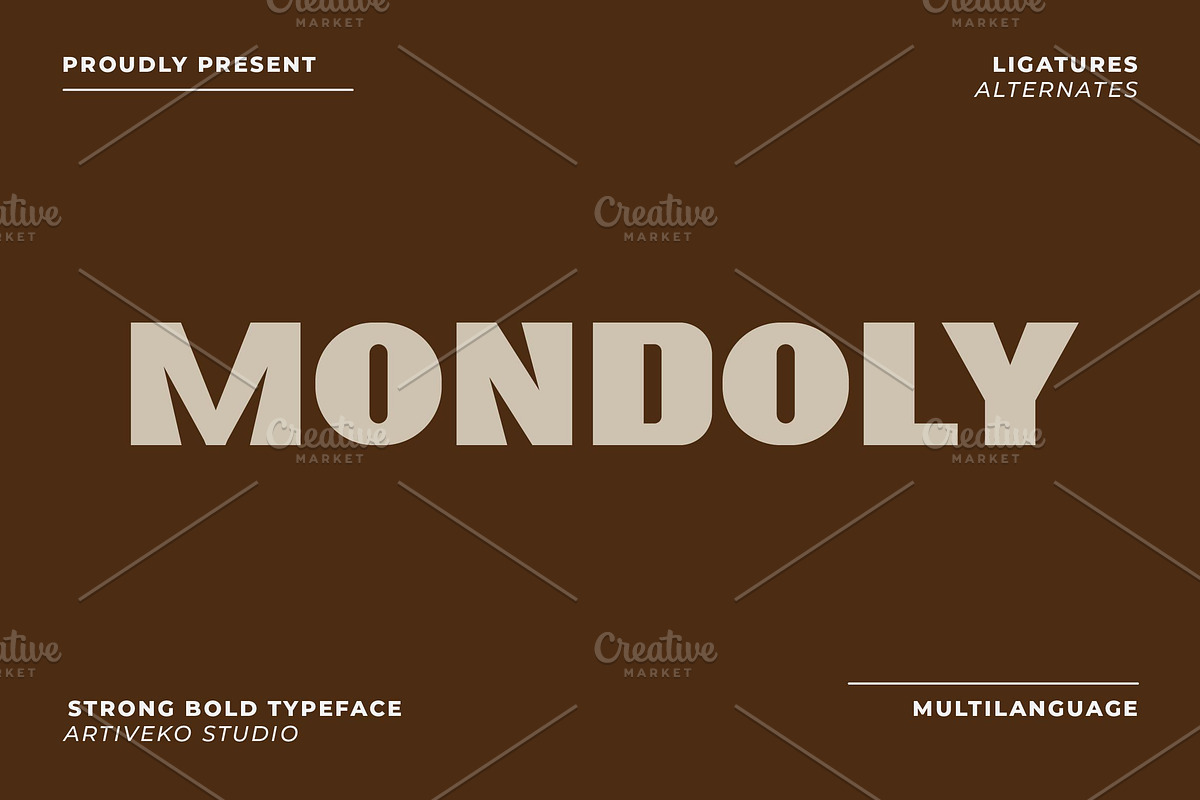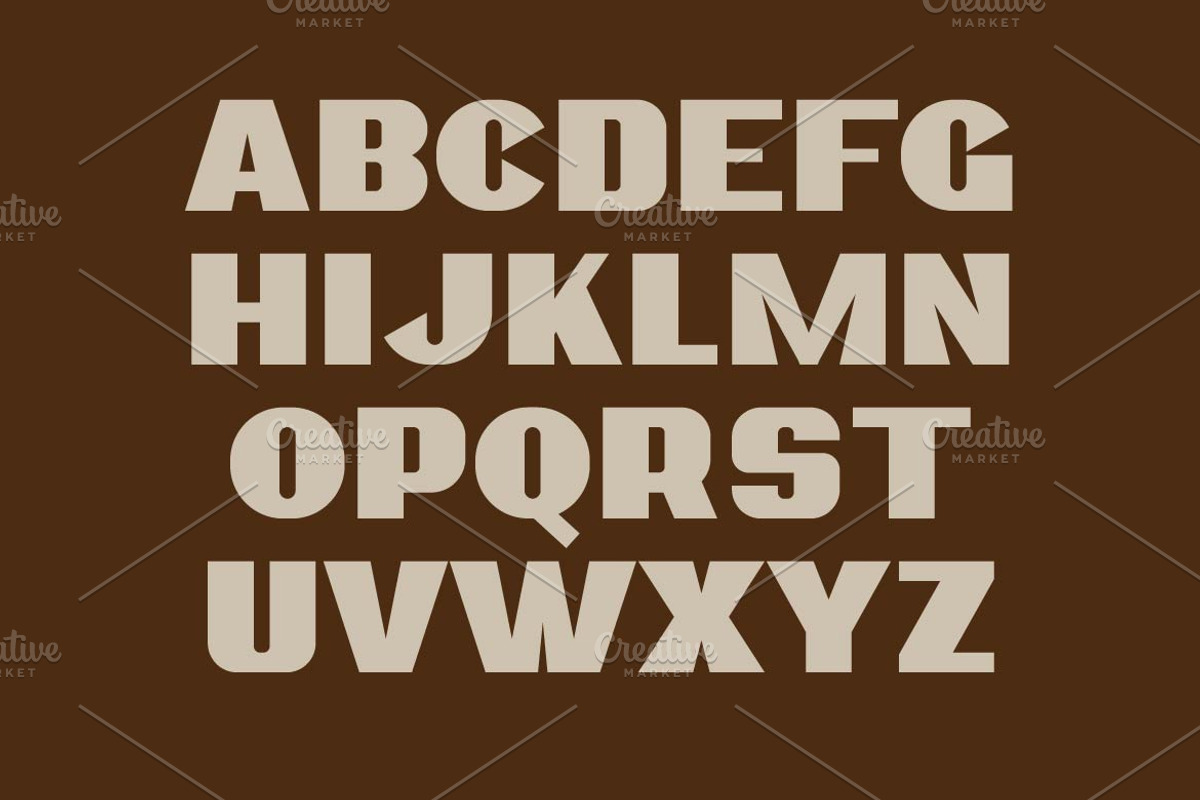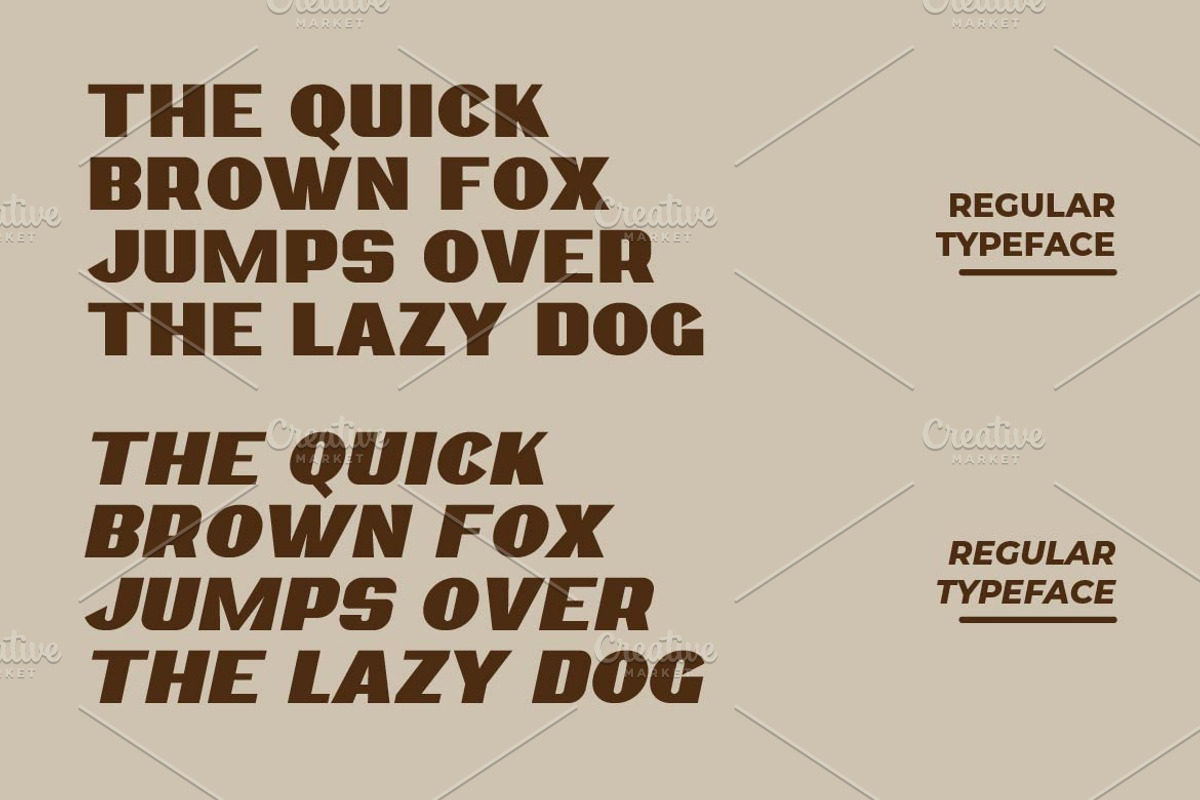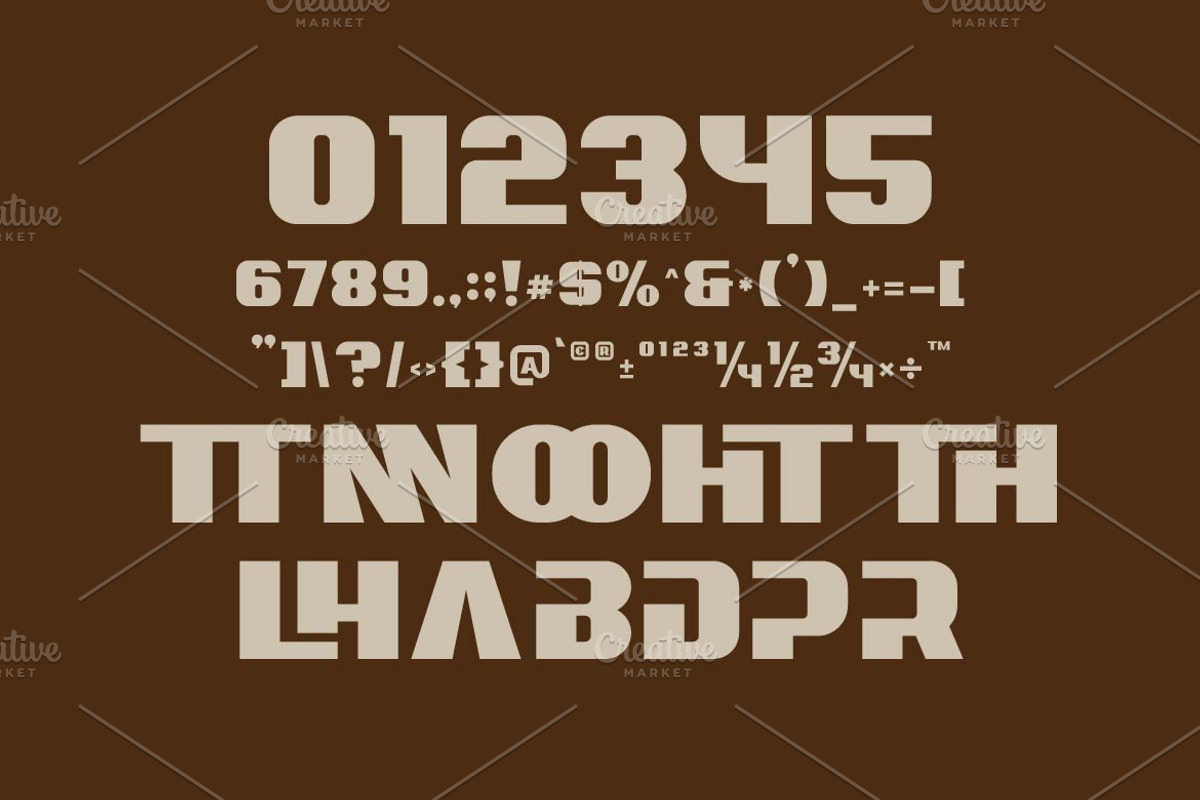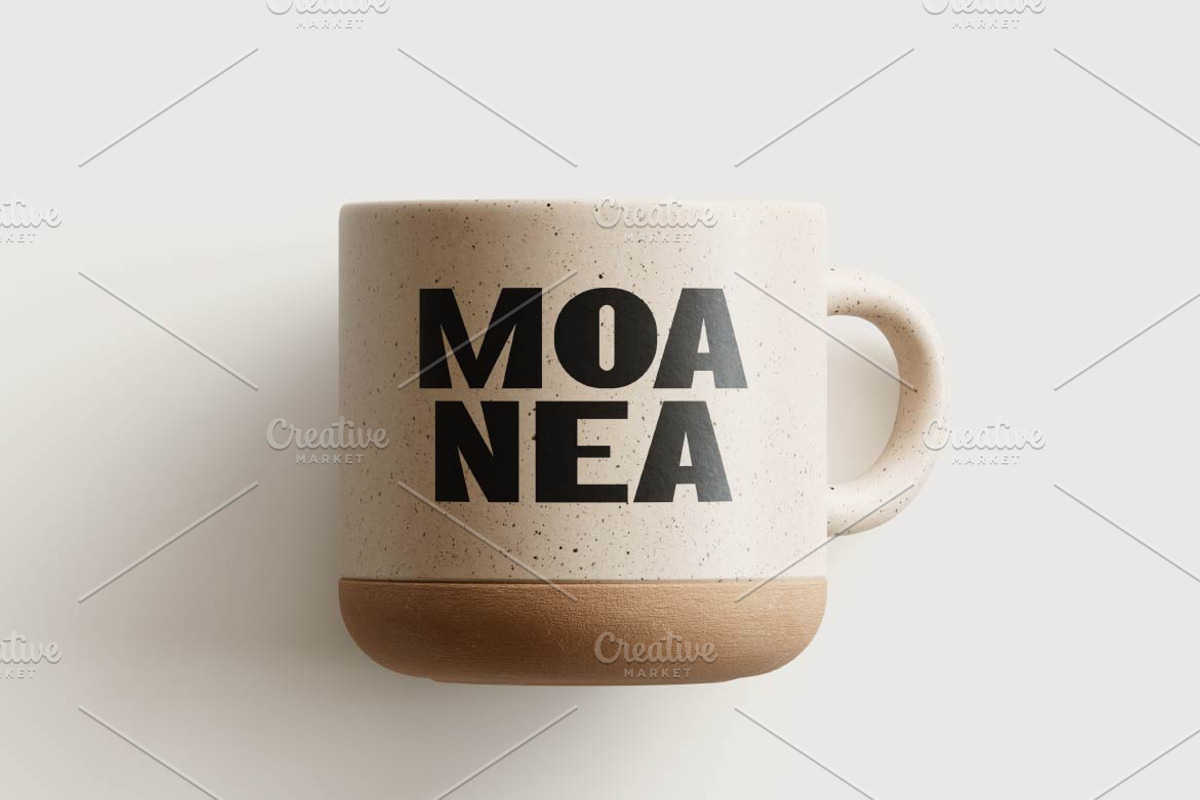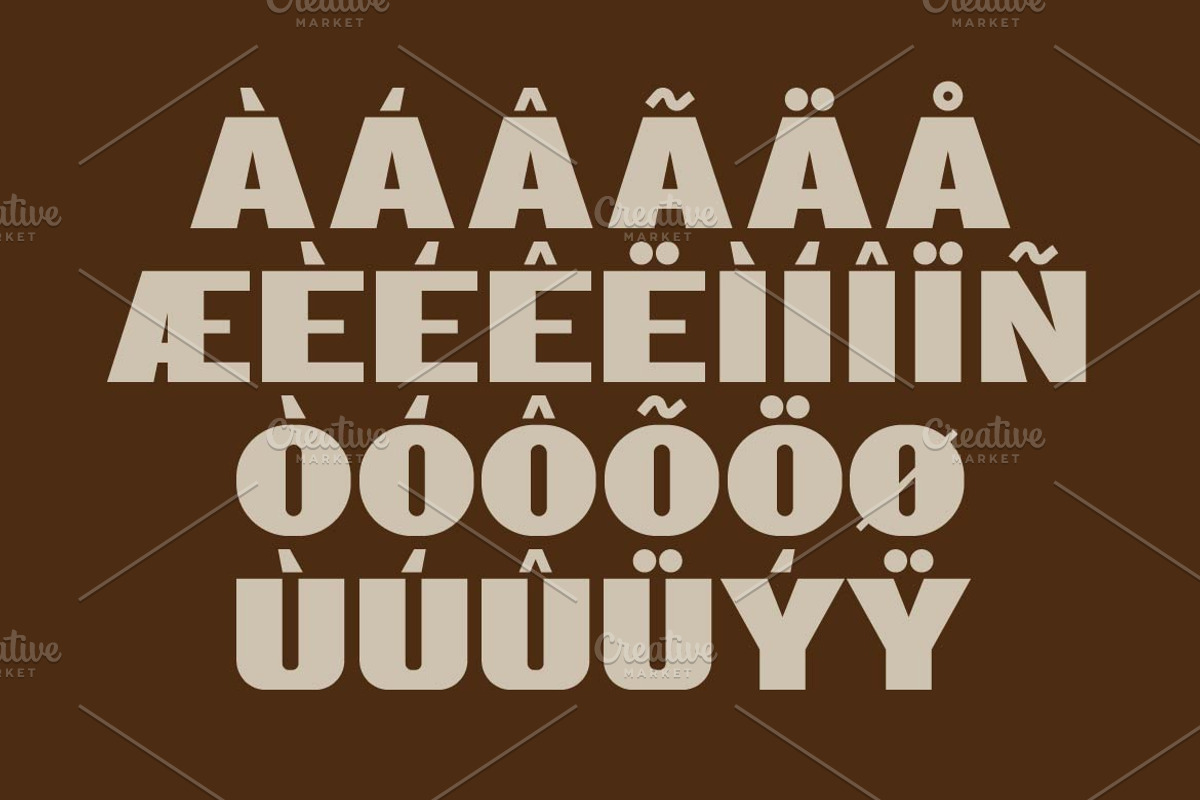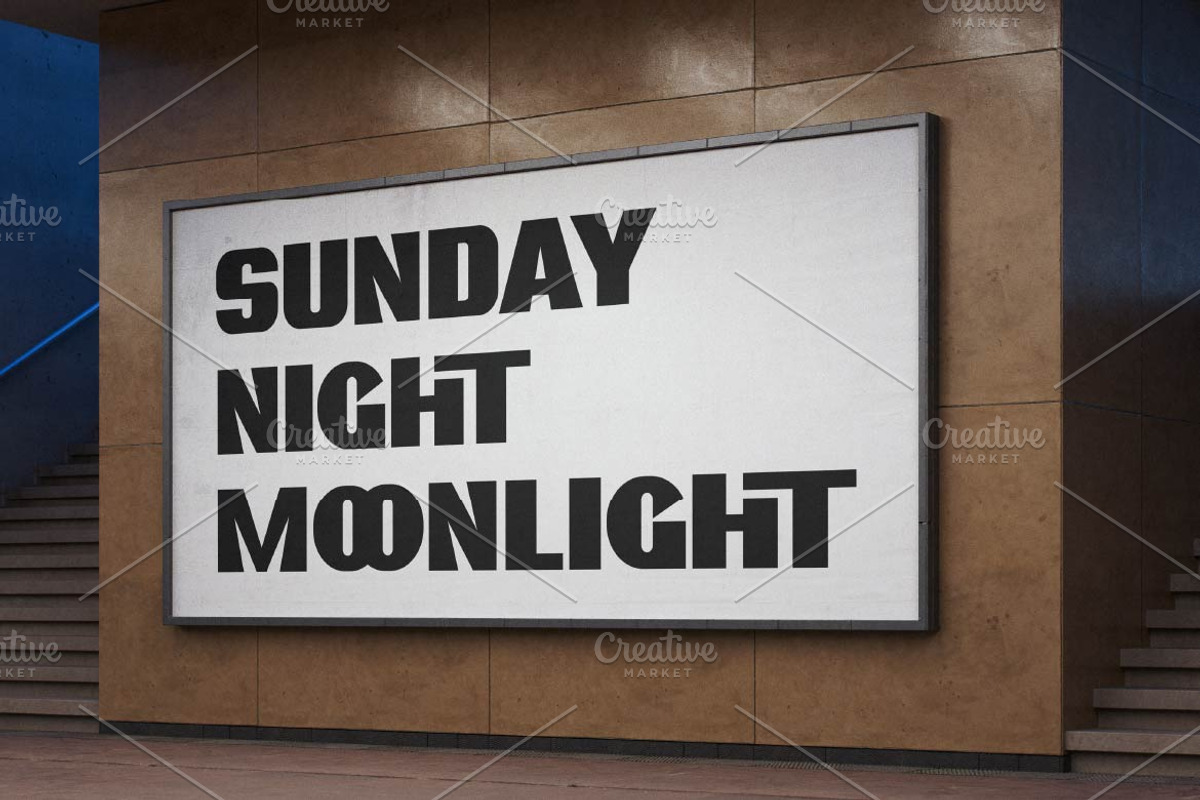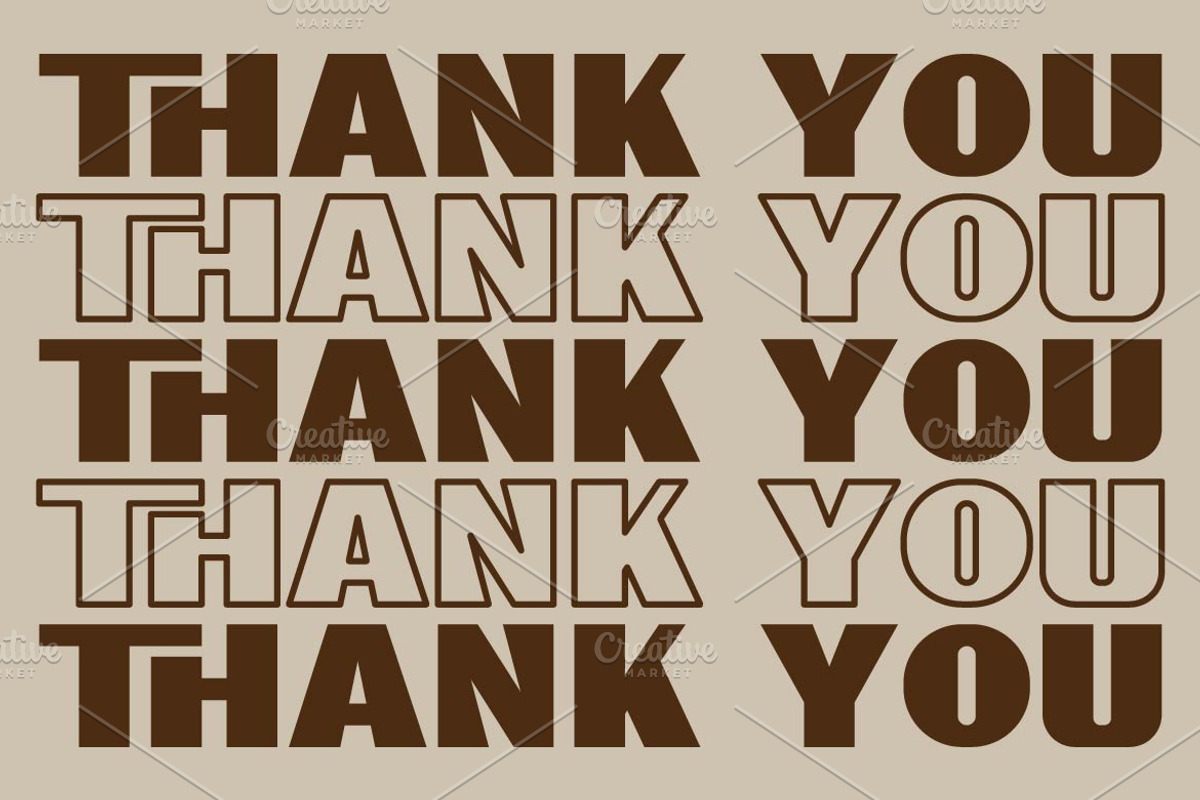
Mondoly Strong Bold Sans Font
Mondoly is a strong bold sans serif font designed to command attention. With powerful letterforms and a solid structure, it’s ideal for impactful headlines, branding, posters, and sports or tech-inspired designs. Featuring multilingual support, alternates, and ligatures, Mondoly delivers confidence and clarity in every use—perfect for bold visual statements.